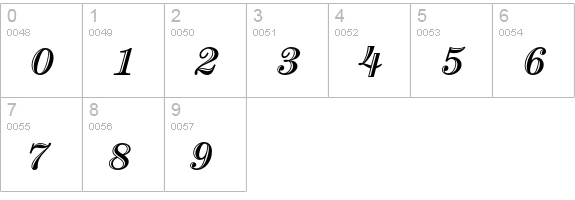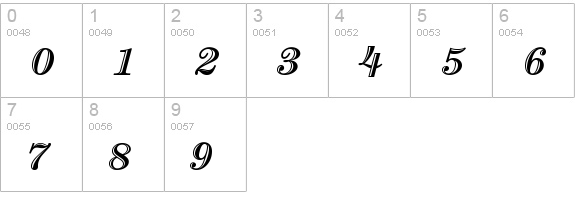
CenturyHandtEF-BoldItalic Font Details
CenturyHandtEF-BoldItalic is a striking and elegant font that exudes a sense of sophistication and modernity. Its bold and italic style adds a touch of flair to any design, making it perfect for headings, titles, and logos. The sleek and sleek curves of this font make it very versatile, suitable for a variety of projects. What sets CenturyHandtEF-BoldItalic apart is that it is available for free download at FontsMarket.com. This means that you can easily access this unique and stylish font without any cost, making it a valuable addition to your font collection. Whether you're working on a professional project or a personal endeavor, CenturyHandtEF-BoldItalic is sure to enhance your designs with its bold and eye-catching appearance. Download it today and elevate your typography game!